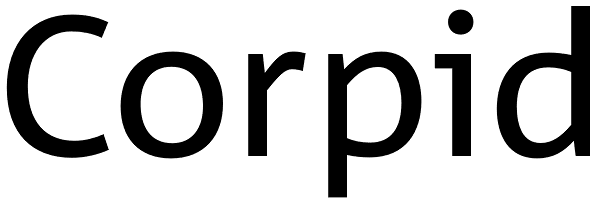
LF Corpid III
The name Corpid derives from "Corporate Identity" - which is what this family of low-contrast sans-serifs was made for. Corpid was originally commissioned by Studio Dumbar in the Netherlands as a corporate typeface for the Dutch Ministry of...